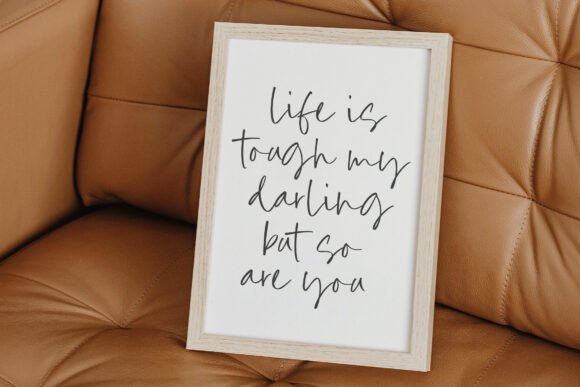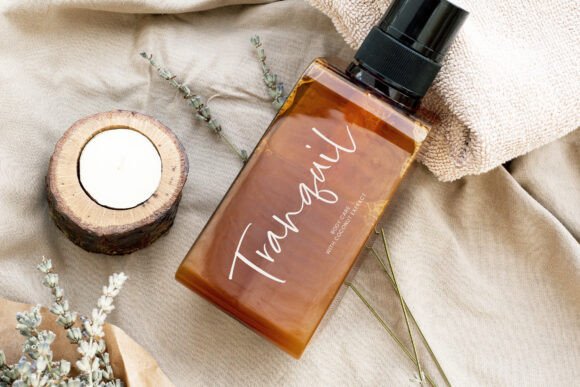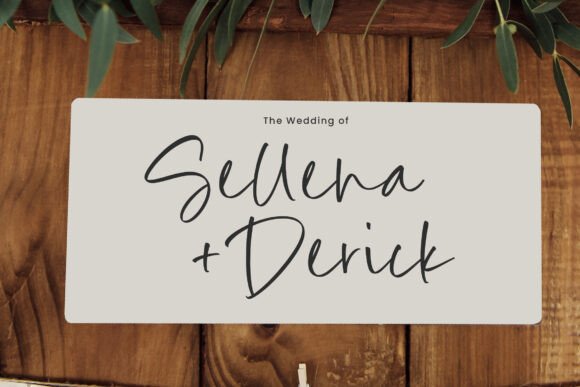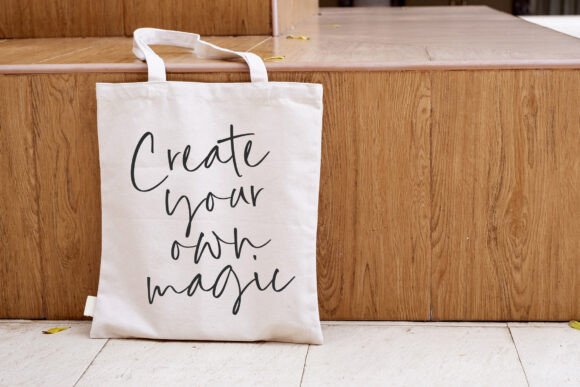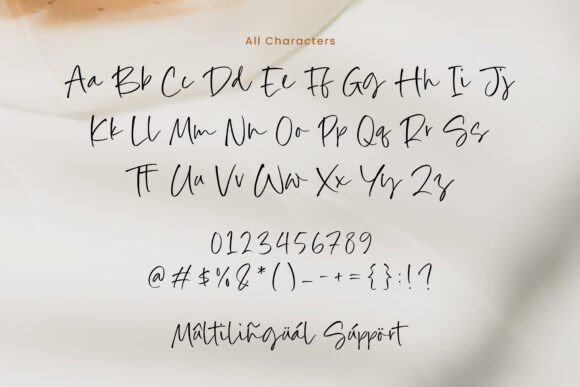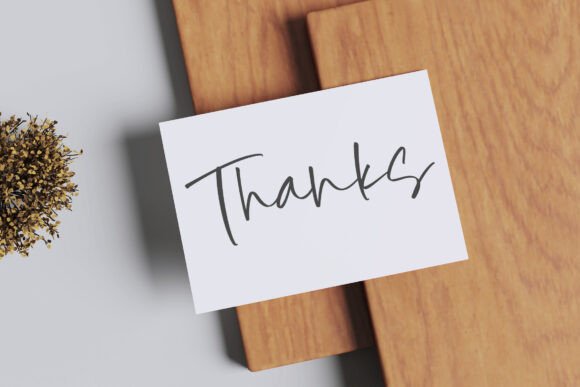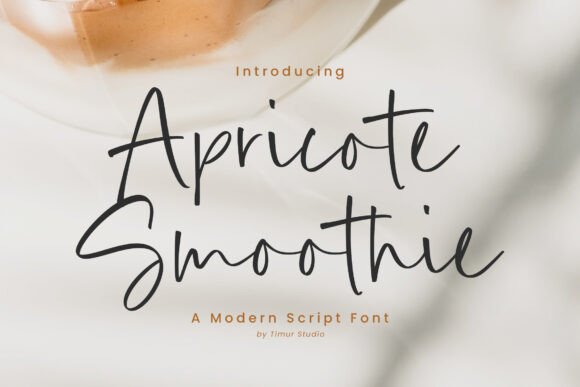
The Apricote Smoothie Font: A Stylish and Elegant Script for Creative Projects
I’ll never forget the time I was working on a branding project for a trendy new cafe, and I just couldn’t find the right font to capture their playful yet sophisticated vibe. That was until I stumbled upon the Apricote Smoothie font. With its smooth, flowing design and delicate curves, it was love at first sight! In this article, I’ll share my experience with this beautiful modern script font, and explore its features, uses, and alternatives.
Apricote Smoothie: A Personal Review
So, what makes Apricote Smoothie so special? Here are some things I love about this font:
- ✨ Smooth and flowing design: The font’s elegant curves and lines make it perfect for creating beautiful, eye-catching graphics.
- ✅ Handwritten aesthetic: Apricote Smoothie has a warm, personal feel that’s perfect for branding, invitations, and social media graphics.
- ✅ Balanced sophistication and playfulness: This font strikes the perfect balance between elegance and whimsy, making it suitable for a wide range of projects.
Of course, no font is perfect, and Apricote Smoothie has a few small quirks:
- 🤔 Limited use in body text: While Apricote Smoothie is stunning in headings and titles, it may not be the best choice for long blocks of body text.
- ⚠️ Some glyphs may require manual adjustment: Depending on the platform or software you’re using, you may need to adjust some glyphs to get the best results.
The Story Behind Apricote Smoothie
Apricote Smoothie was designed by a talented typographer who wanted to create a font that captured the essence of modern elegance. With its smooth lines and delicate curves, this font is perfect for designers who want to add a touch of sophistication to their projects. Whether you’re working on a branding campaign, a wedding invitation, or a social media graphic, Apricote Smoothie is sure to impress.
| Font Name | Apricote Smoothie Font |
| Author | Timur type |
| What is the best use for Apricote Smoothie? | Apricote Smoothie is perfect for branding, invitations, logos, and social media graphics. |
| Is Apricote Smoothie suitable for body text? | While Apricote Smoothie is stunning in headings and titles, it may not be the best choice for long blocks of body text. |
| Does Apricote Smoothie support OpenType features? | Yes, Apricote Smoothie supports OpenType features, including stylistic alternates, glyphs, and ligatures. |